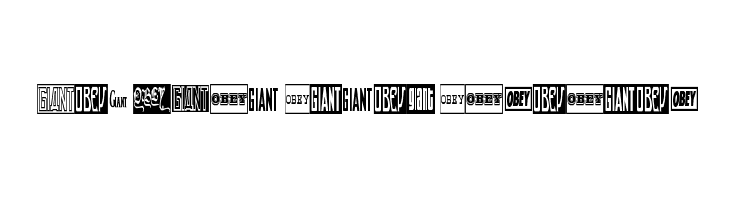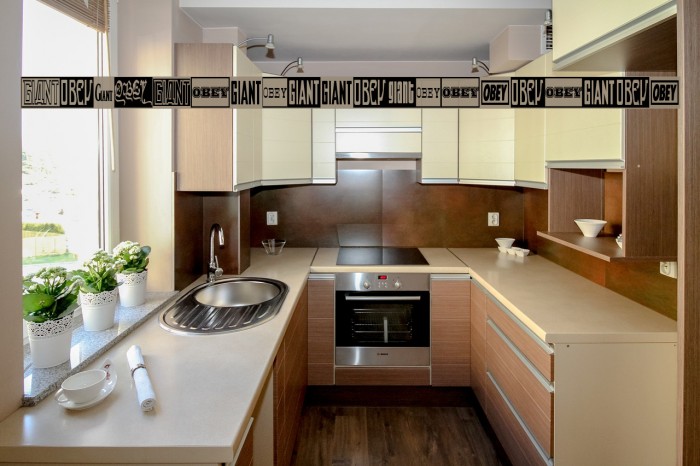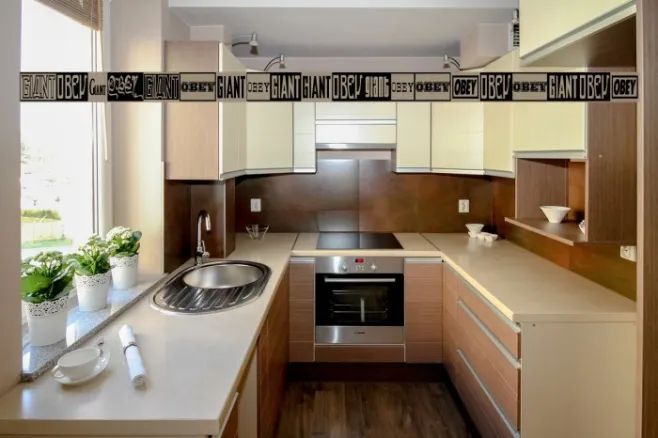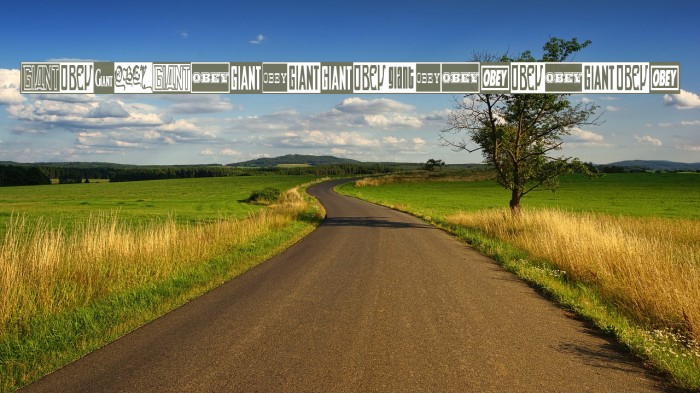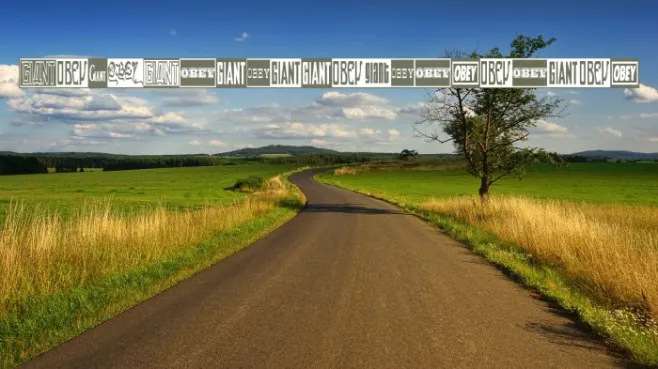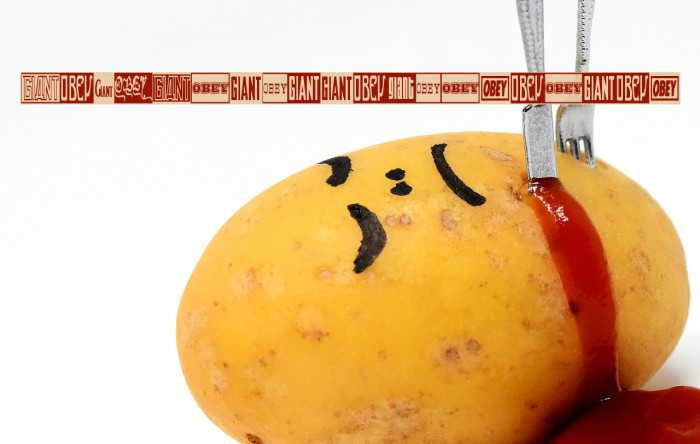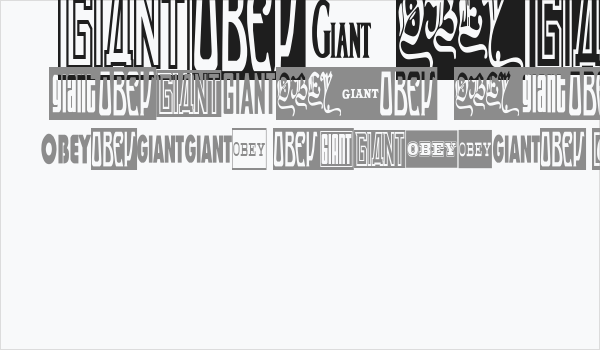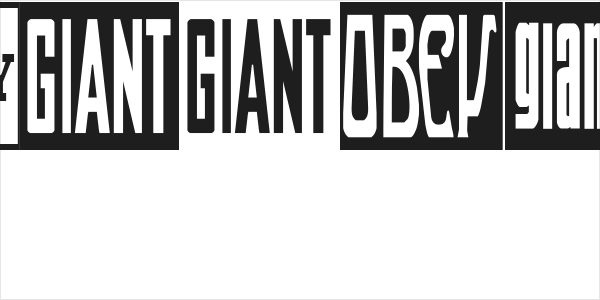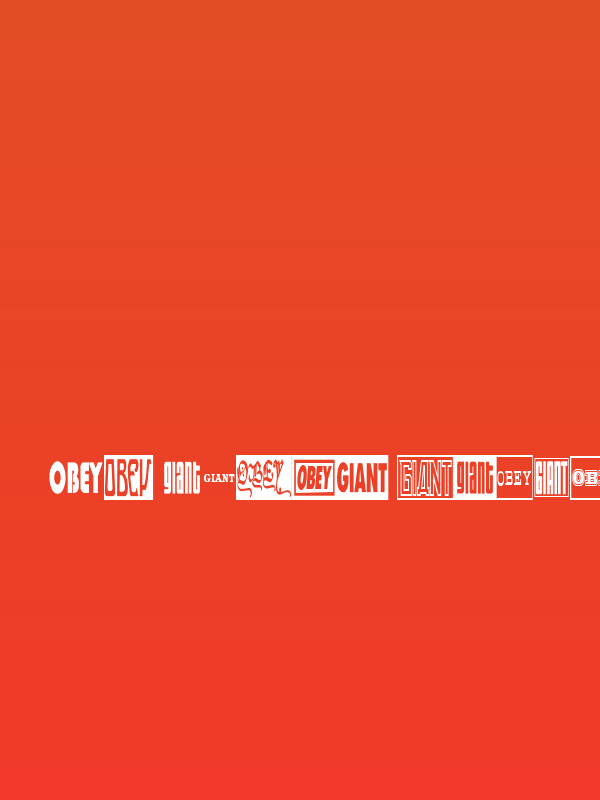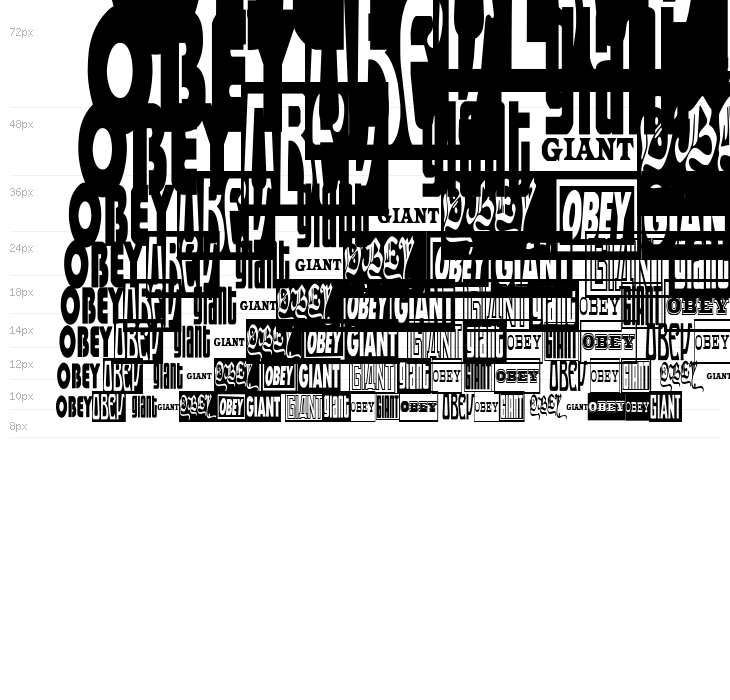
ObeyGiantPosterCondensed Font
ObeyGiantPosterCondensed Description
This font is a bold and impactful display typeface that captures attention with its strong, condensed letterforms. The design features a mix of solid and outlined characters, creating a dynamic and versatile look. The uppercase letters are particularly striking, with a uniform height that enhances readability and visual impact. The font's style is reminiscent of urban and street art, making it ideal for projects that require a bold statement. Its unique character shapes and varying line thicknesses add depth and interest, while maintaining a cohesive overall appearance.
| Overall Style | Urban, Modern |
| Proposed Projects | Ideal for posters, logos, branding, and street art-inspired designs. |